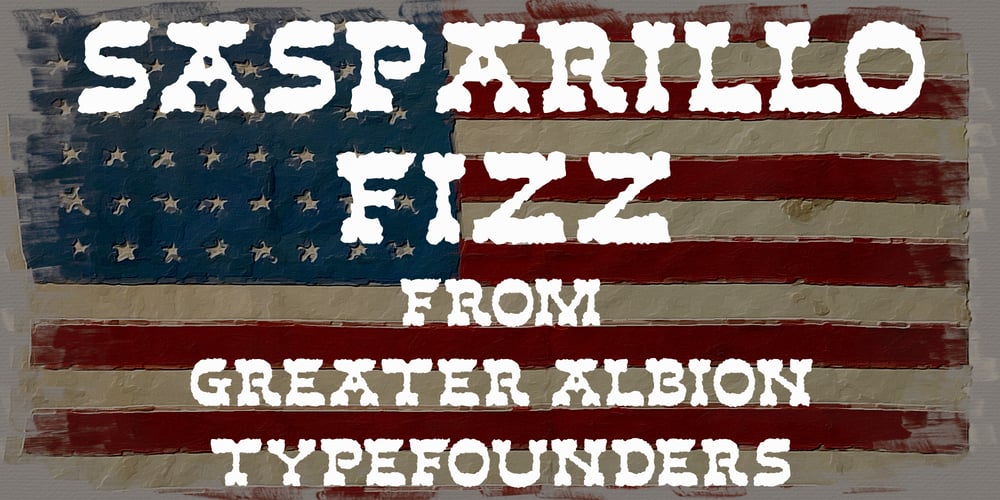
Sasparillo Fizz Font Family was designed by Paul James Lloyd and published by Greater Albion Typefounders. Sasparillo Fizz contains 1 styles and family package options. Sasparillo is an “extreme” Tuscan face, with reversed emphasis, by which we mean the horizontals are far heavier than the verticals. Saspirillo Fizz has been put through our (not quite) patented “fizzing” process, in order to give it that weathered look of heavily used type. Recreate the spirit of the “Wild West” with a sense of fun!